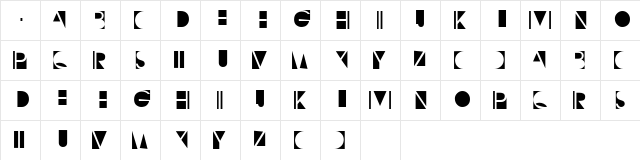
NegativeO Normal
Design Context for NegativeO Typeface
NegativeO is a composed and adaptable typeface that performs quietly and consistently across a wide range of design contexts.